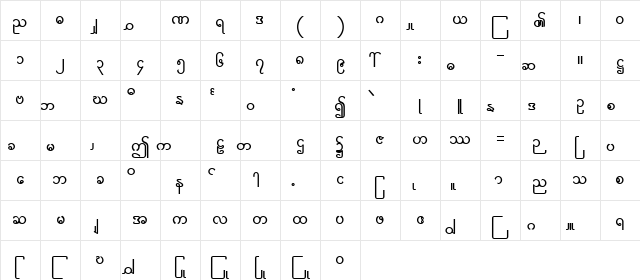
Wwin_Circle Bold
Design Context for Wwin_Circle Bold Typeface
Wwin_Circle Bold takes a measured approach to typography — its balanced proportions and neutral character make it a reliable workhorse for both digital and print work. Its bold stroke weight gives it real presence on the page.